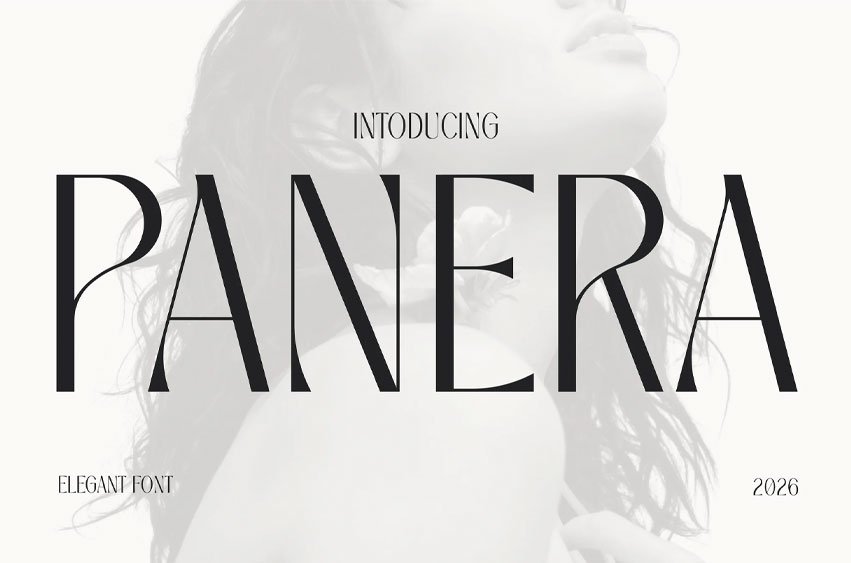
Panera Font is an elegant editorial display typeface crafted for beauty branding, skincare packaging, and sophisticated visual identities. Featuring high-contrast strokes, elongated proportions, delicate curves, and refined terminals, this typeface creates a graceful presence that feels modern, stylish, and highly memorable.
Inspired by fashion magazines, cosmetic campaigns, and contemporary lifestyle brands, Panera balances artistic expression with readability. Its slender letterforms and distinctive contrast bring a polished appearance that elevates branding, packaging, social media content, editorial layouts, and promotional materials. Whether used for product labels, magazine covers, website headers, or Instagram campaigns, Panera delivers a confident visual voice with timeless appeal.
Panera helps designers create branding that feels refined, aspirational, and visually distinctive. The elegant structure naturally draws attention to headlines while maintaining a clean and sophisticated aesthetic. Perfect for skincare brands, cosmetic packaging, fashion editorials, wellness products, boutique businesses, lookbooks, posters, and social media marketing, Panera transforms simple typography into a memorable visual experience. Its graceful character helps brands communicate quality, confidence, and modern style without overwhelming the design.
Key Features : High-Contrast Letterforms
- Elegant thick-to-thin stroke transitions
- Strong editorial presence for impactful headlines
- Creates sophisticated visual hierarchy
Fashion-Inspired Structure
- Tall proportions with refined detailing
- Stylish appearance suited to modern branding
- Distinctive personality without sacrificing readability
Perfect for Beauty & Lifestyle Projects
- Cosmetic packaging
- Skincare branding
- Editorial design
- Social media campaigns
- Boutique product labels
Modern Yet Timeless
- Contemporary aesthetic with lasting appeal
- Suitable for both digital and print applications
- Enhances brand perception through typography
Attention-Grabbing Headlines
- Ideal for large display sizes
- Creates elegant focal points
- Adds sophistication to minimalist layouts